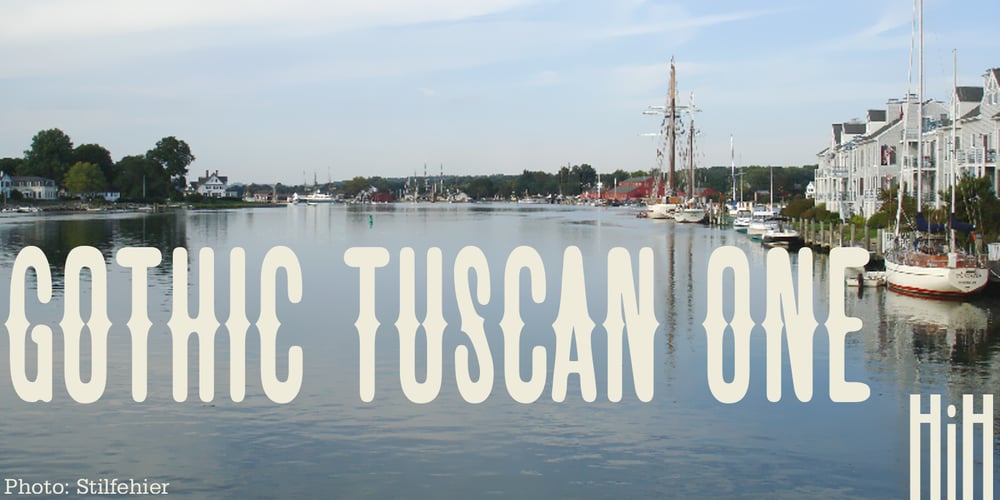
Gothic Tuscan One
Gothic Tuscan One font
Gothic Tuscan One Font Family was designed by William Hamilton Page and published by HiH. Gothic Tuscan One contains 2 styles and family package options. Gothic Tuscan One is a all-cap condensed gothic with round terminals and decorative “tuscan” center spurs. It was first shown by William H. Page of Norwich, Connecticut among his wood type specimen pages of 1859. Gothic Tuscan One exemplifies the strength of decorative wood types: large, simple type forms that provide the visual boldness sought by advertisers of the Victorian period. While our marketing has gotten so very sophisticated, there is always a place for simple, visually strong typeface. Although about 14 miles inland, Norwich lies at the head of the Thames River. The river is both wide and deep, and therefore was not bridged in the early 20th century. From the 17th century until then, if you wanted to get from Groton on the west bank to the whaling port of New London on the east bank by land, you had to had to go by way of Norwich. Because of its size, the Thames is navigable all the way from Norwich to New London. Docks were built in Norwich around 1685 and the city became Connecticut’s 2nd largest port by 1800. With the construction of the Norwich & Worcester Railroad in 1835, Page could easily ship his wood type north by rail or south by coastal schooner. Included with our font, Gothic Tuscan One, are two 19th century printer’s ornaments of sailing ships similar to those that sailed up the Thames to Norwich. There is also a more contemporary glyph of a whale, looking quite pleased that the only whaling ship left in Connecticut is the Charles W. Morgan, permanently moored at Mystic Seaport. Reference: Moon’s Handbooks, Connecticut 2nd Edition (Emeryville CA 2004). Gothic Tuscan One ML represents a major extension of the original release, with the following changes: 1. Added glyphs for the 1250 Central Europe, the 1252 Turkish and the 1257 Baltic Code Pages. Added glyphs to complete standard 1252 Western Europe Code Page. Special glyphs relocated and assigned Unicode codepoints, some in Private Use area. Total of 332 glyphs. 2. Added OpenType GSUB layout features: pnum, ornm and dlig. 3. Added 330 kerning pairs. 4. Revised vertical metrics for improved cross-platform line spacing. 5. Redesigned mathamatical operators 6. Included of both tabular (std) & proportional numbers (optional). 7. Refined various glyph outlines. Please note that some older applications may only be able to access the Western Europe character set (approximately 221 glyphs). The zip package includes two versions of the font at no extra charge. There is an OTF version which is in Open PS (Post Script Type 1) format and a TTF version which is in Open TT (True Type)format. Use whichever works best for your applications.